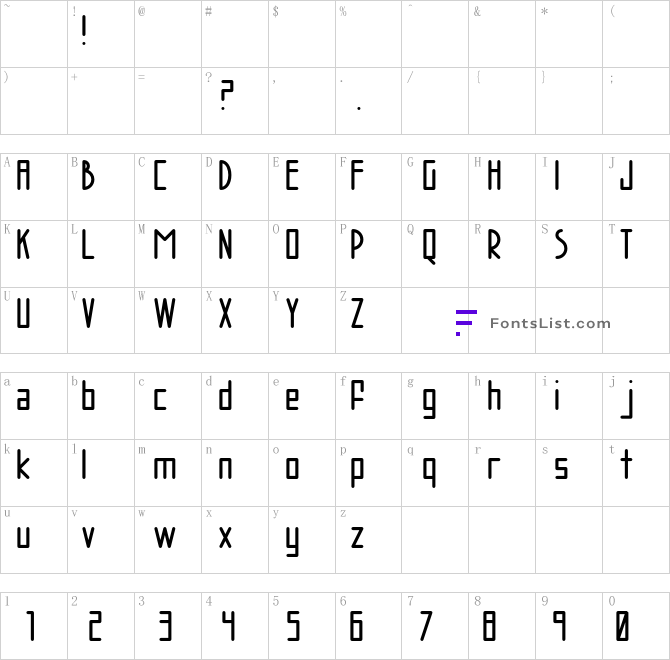
- Font Name:AC Brodie
AC-Brodie.otf is a very beautiful artistic font, AC-Brodie.otf is widely used in the design and printing of various books and pictures,AC-Brodie.otf has a strong visual impact,AC-Brodie.otf is a commonly used font in newspapers, magazines and books, and is used in posters, e-commerce Poster design, store design, logo design, font design and other fields.AC-Brodie.